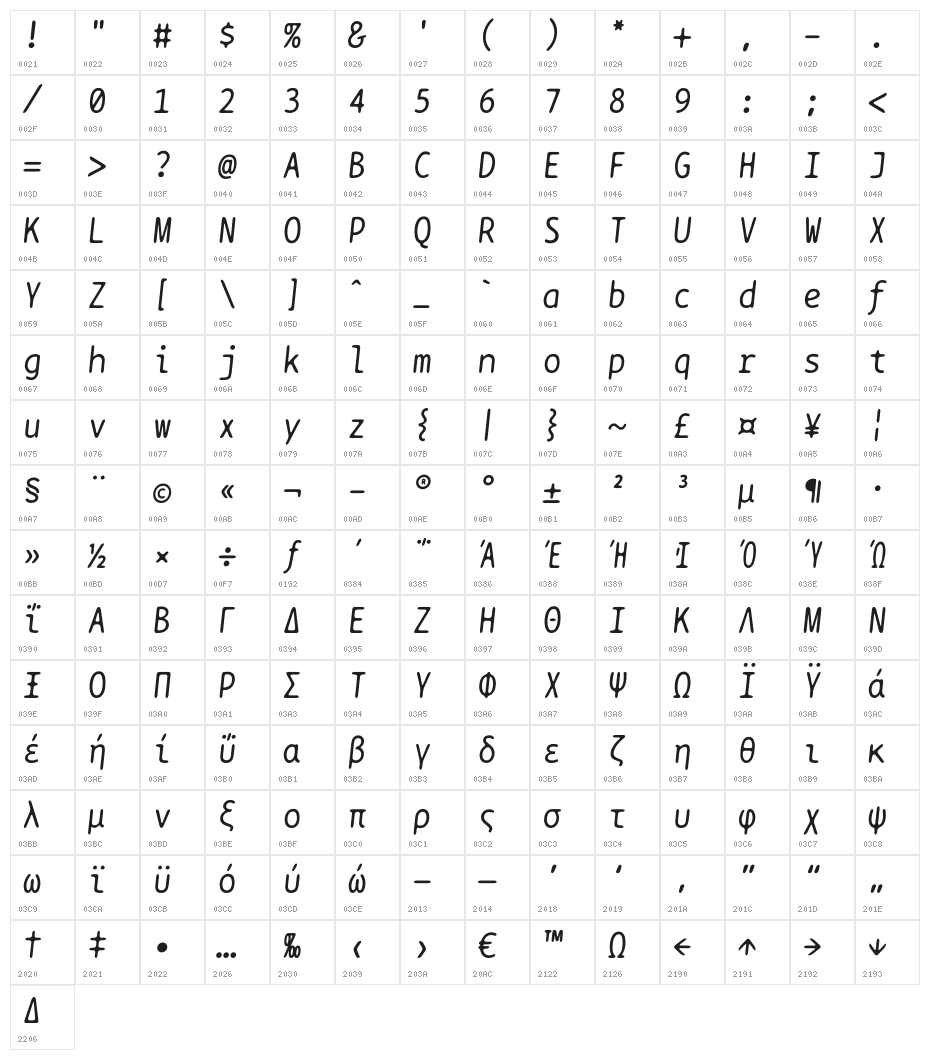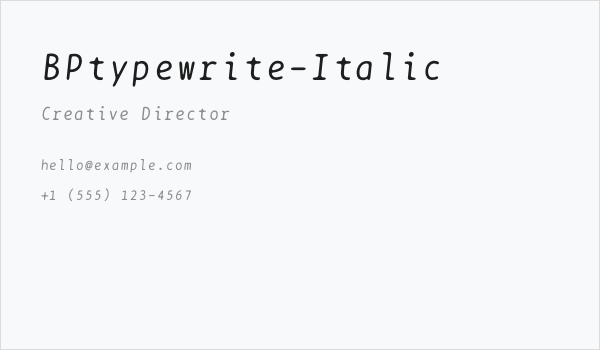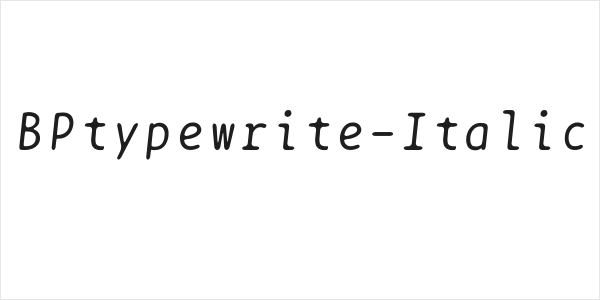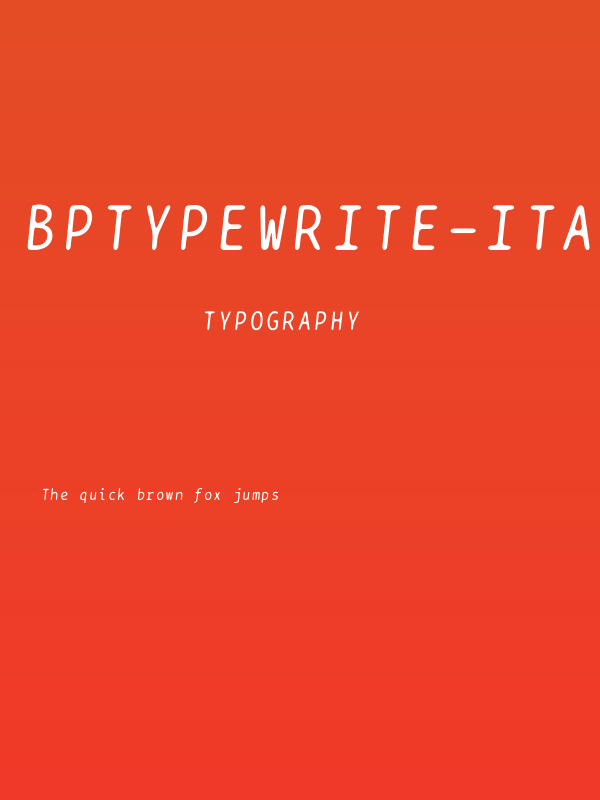
BPtypewrite-Italic Font
BPtypewrite-Italic Description
This font features a charming, handwritten style with a slight slant, reminiscent of typewriter text but with a modern twist. The characters are evenly spaced, providing a clean and readable appearance. Uppercase and lowercase letters maintain a consistent style, with rounded edges and a casual, friendly look. The numerals and special characters complement the alphabet with similar design elements, ensuring uniformity across all text. This font's playful yet professional aesthetic makes it versatile for various applications.
| Proposed Projects | Ideal for creative projects such as invitations, greeting cards, and personal branding. It can also be used for digital content like blogs and social media graphics, where a personal touch is desired. |